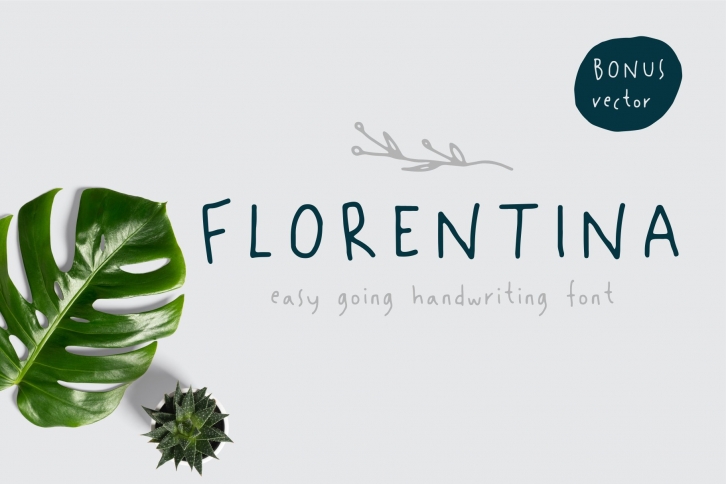
If you ever dream about light vibe, playful, easy going, cute, has some nature touch in it and still has a good read-ability font.
It's time to wake up.
FLORENTINA is here. The "ink bleed", irregular line, it's look like you write it by yourself. Not mentioning that dreamy hand-drawn bonus...LOTS OF THEM.